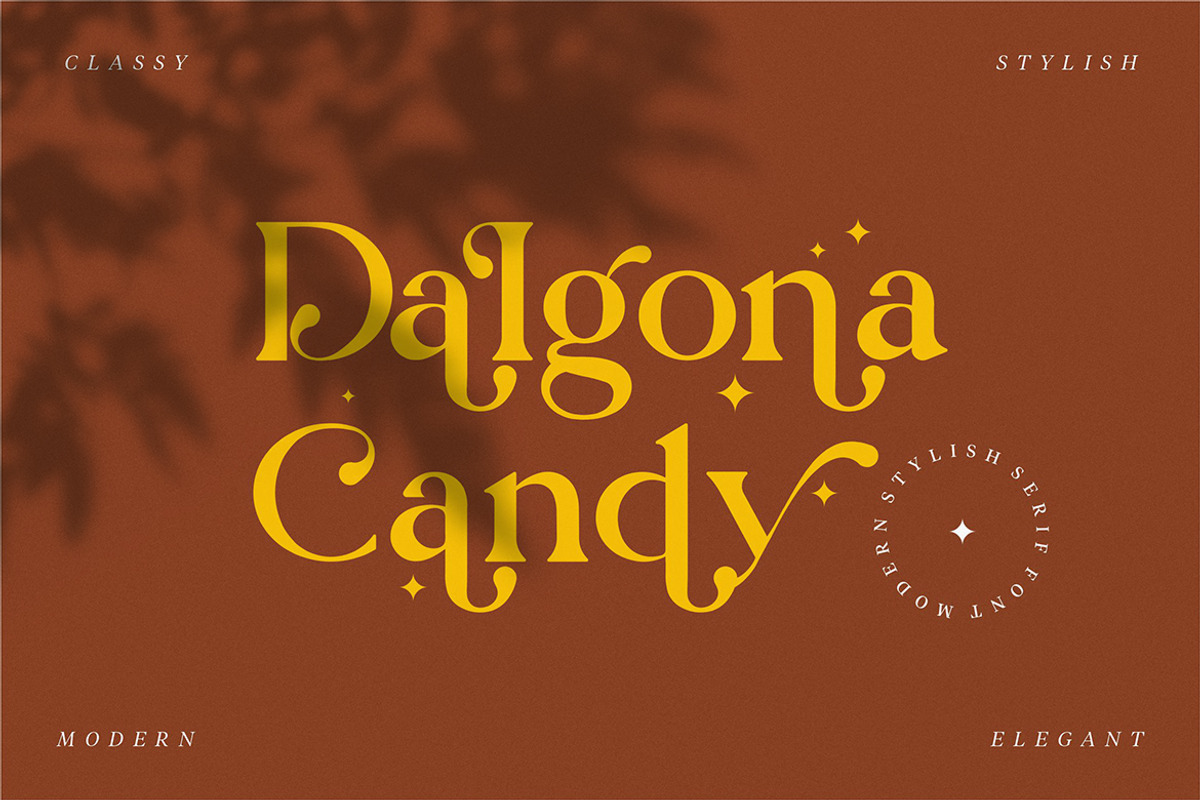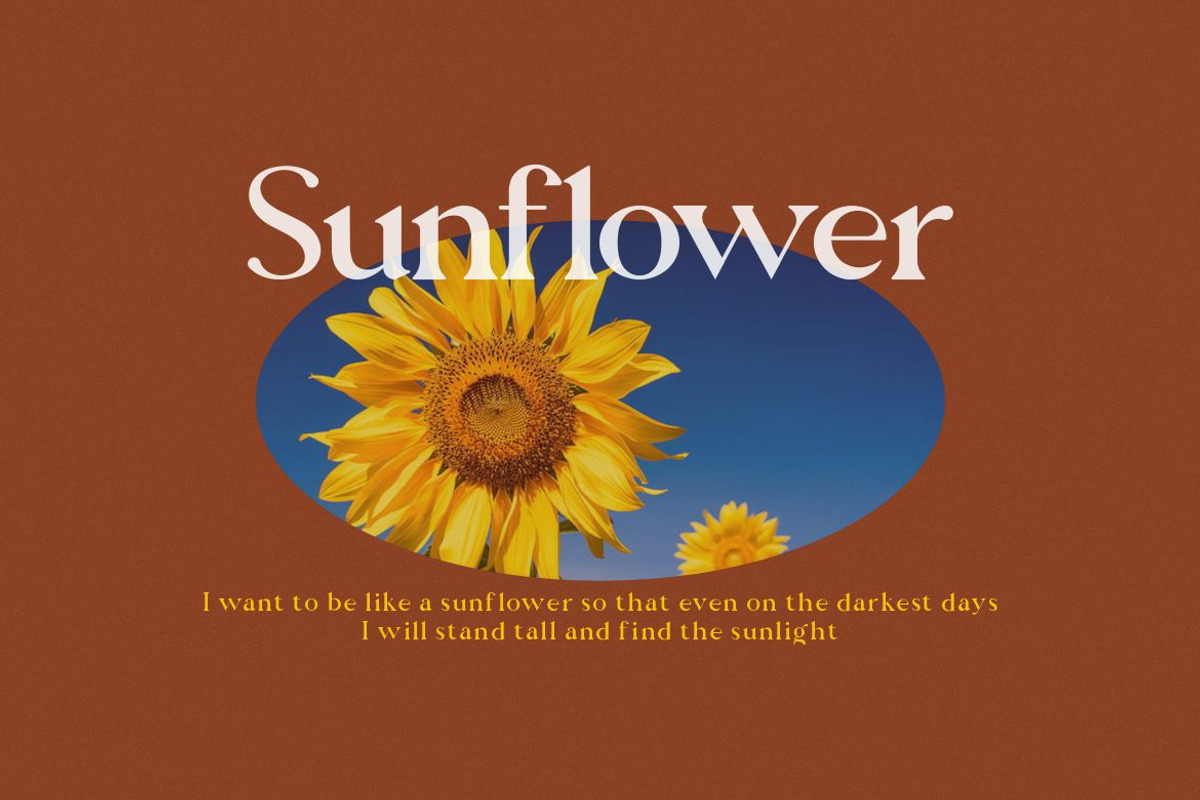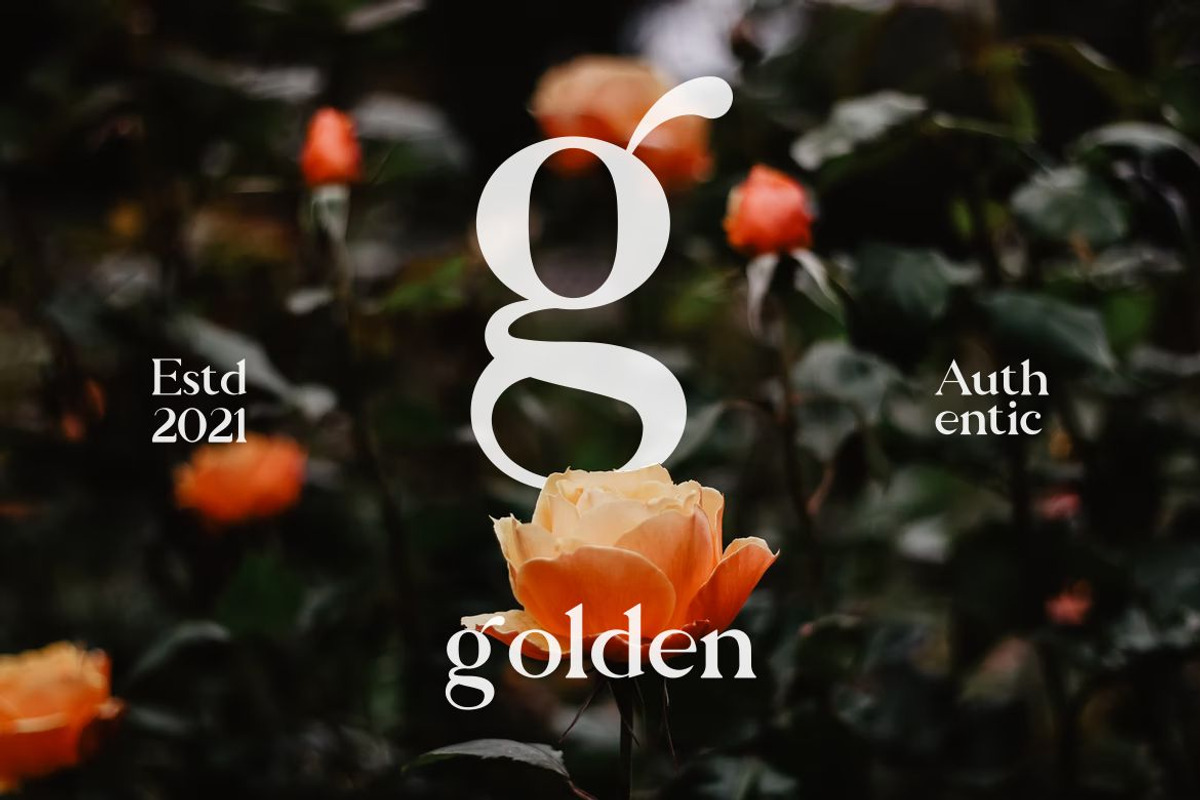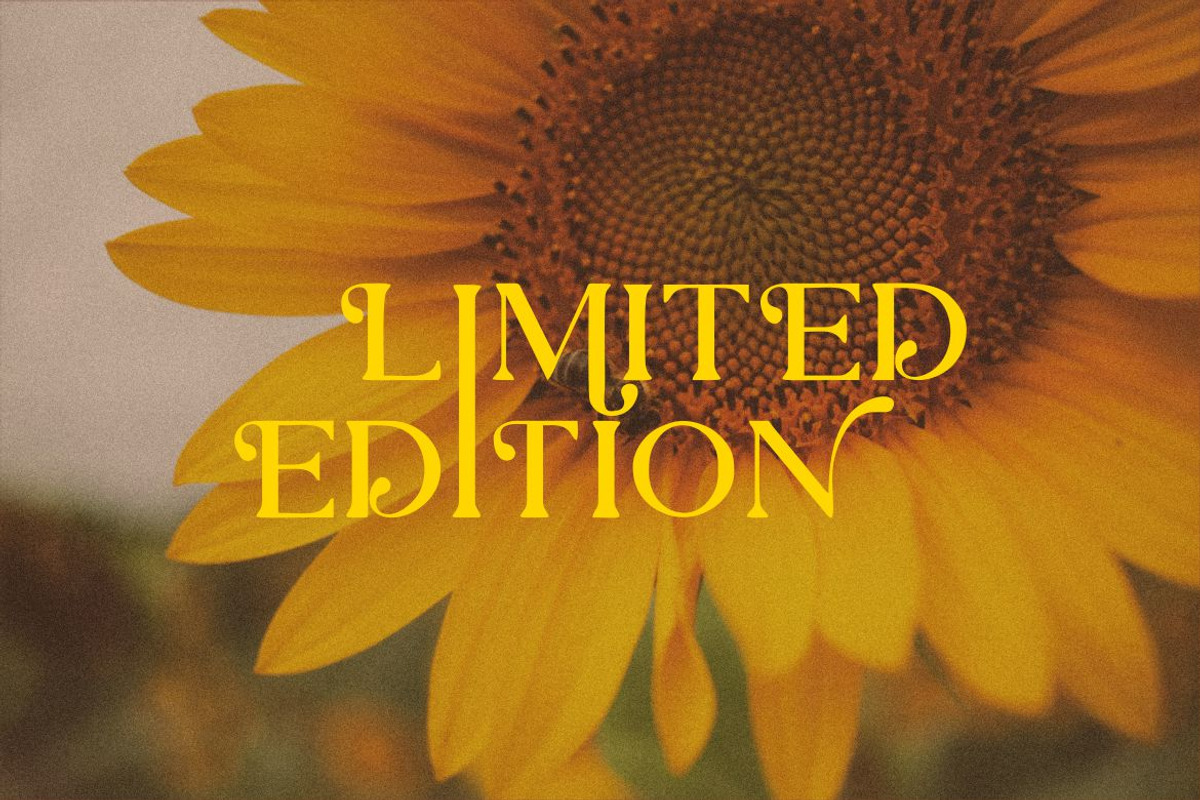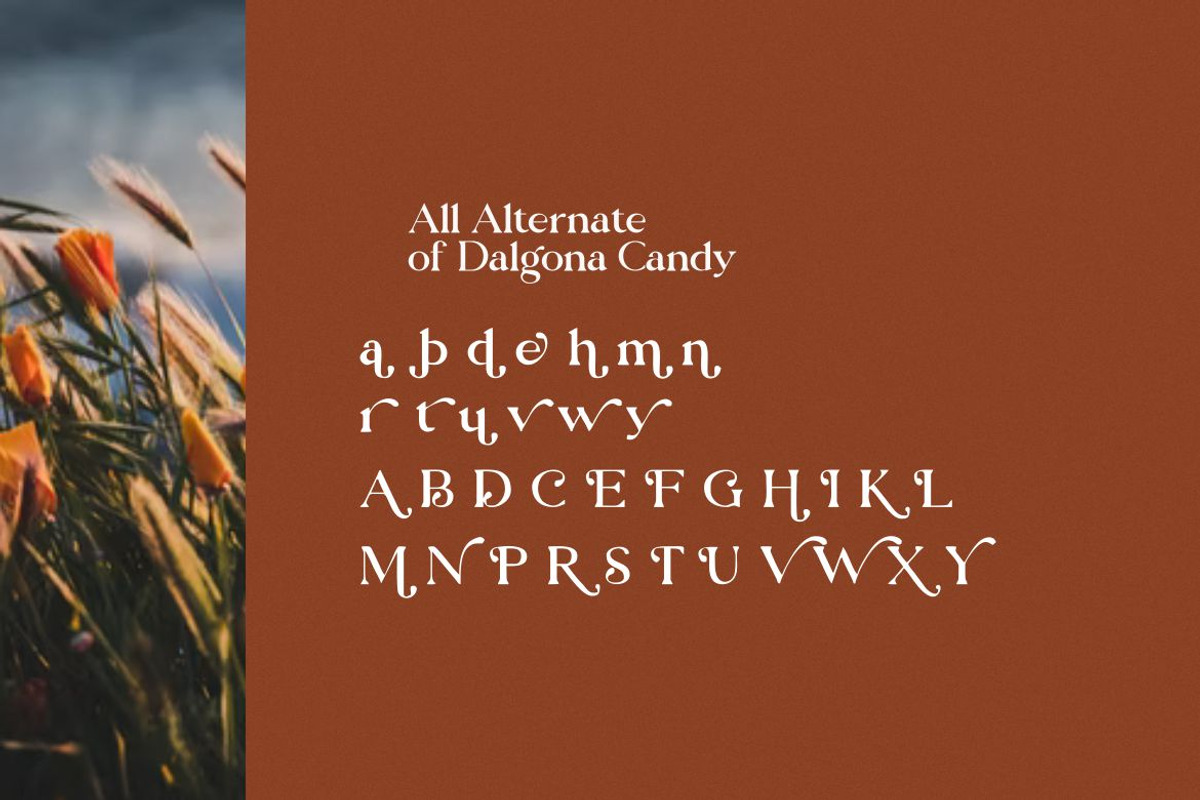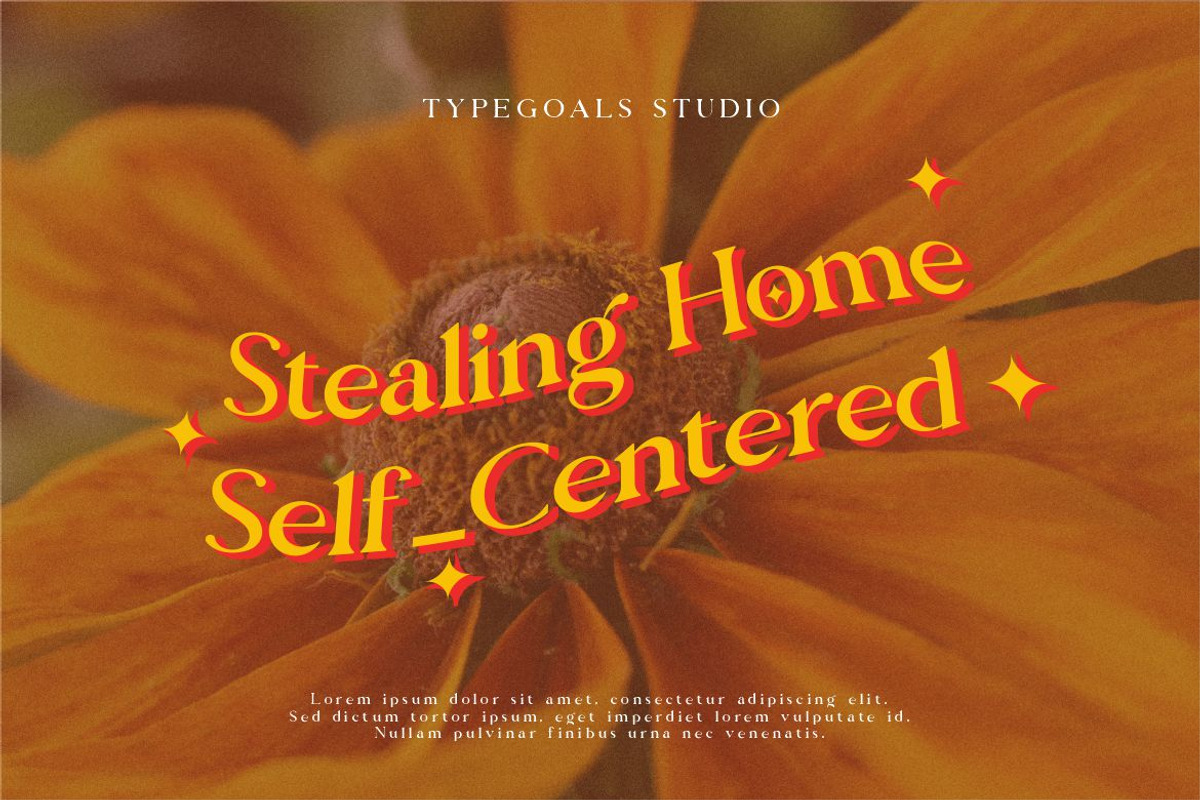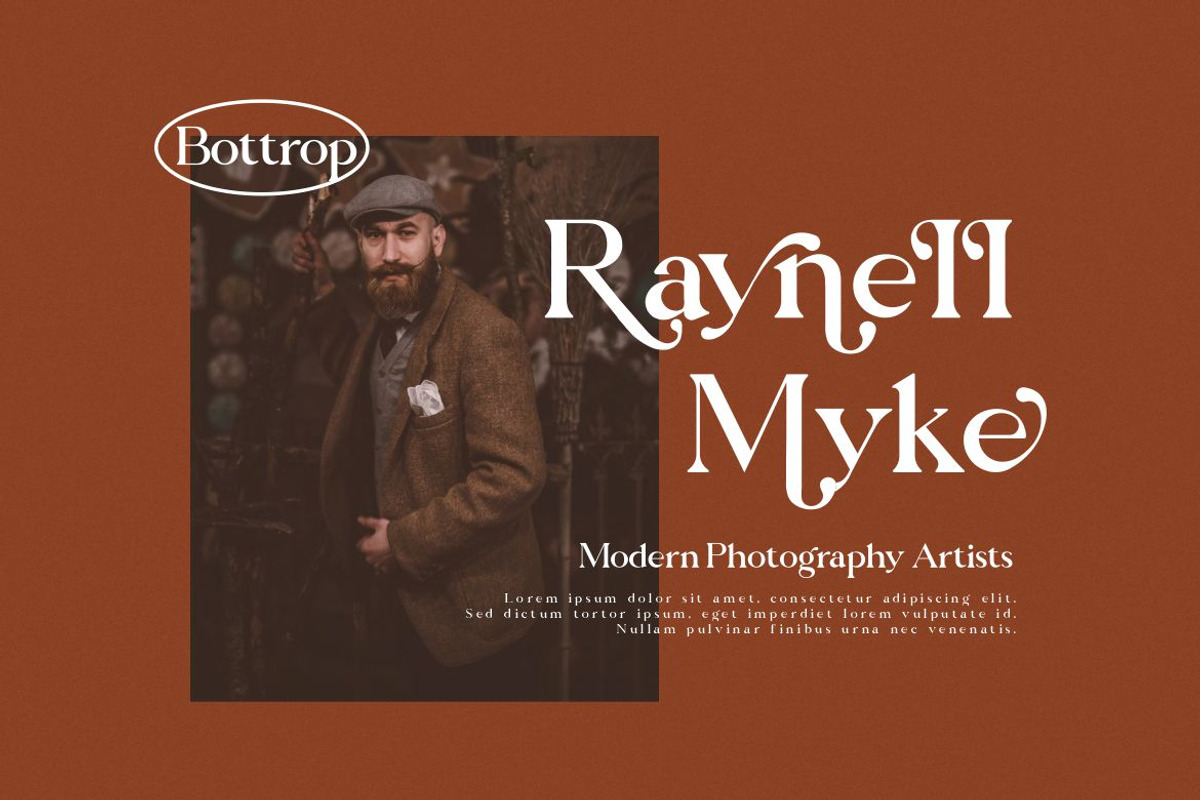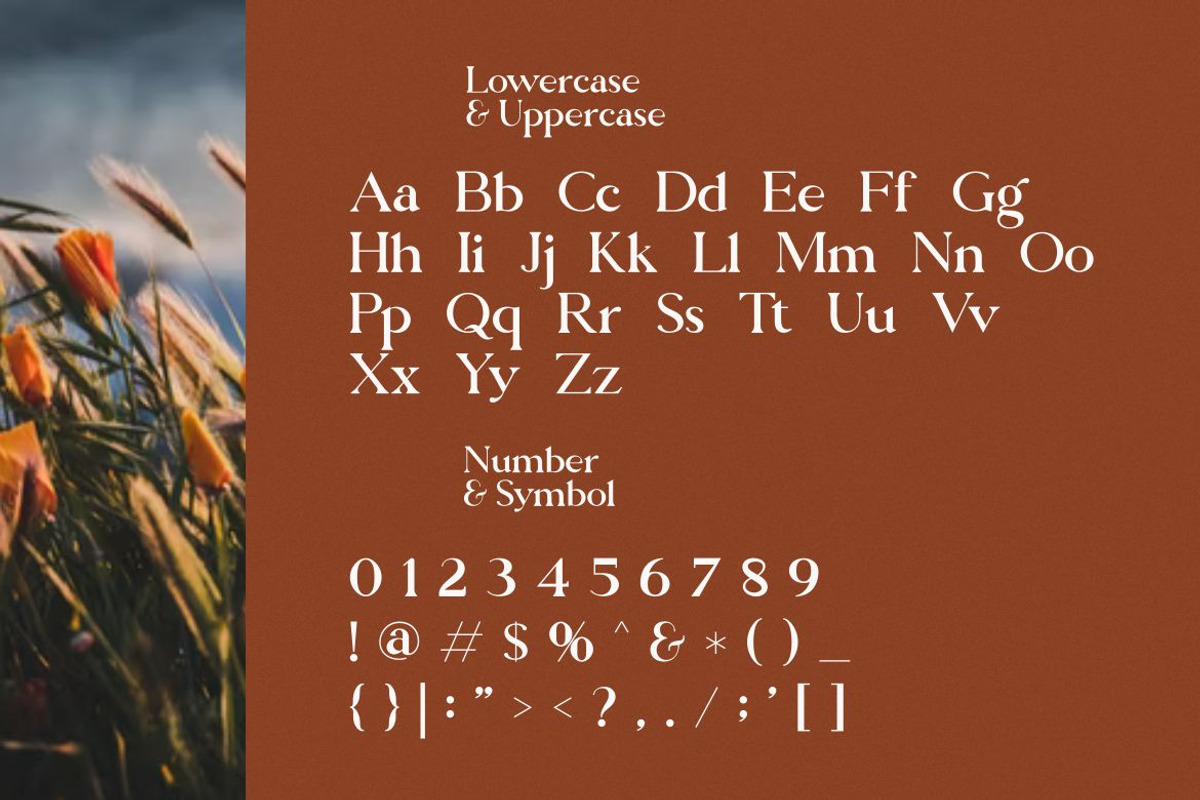
Dalgona Candy Modern/Vintage Font
Dalgona Candy is a stylish font It has both modern and retro look - clear, modern and fun. Perfect if you need a dose of fun in your project.